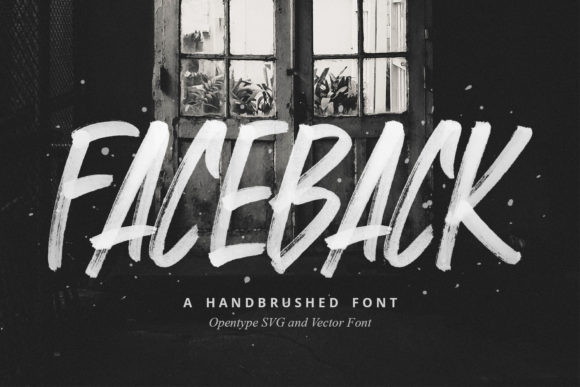
The Faceback is a unique svg font with a brushed texture. The level of accuracy contained in this font is very sharp.
The Faceback is perfect for adding a rough style to your logos, posters, packaging, advertisements, headlines, branding, and every other design that needs an urban look.